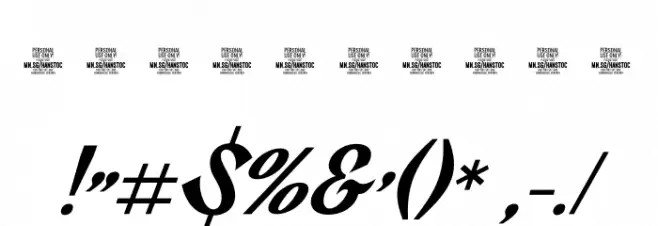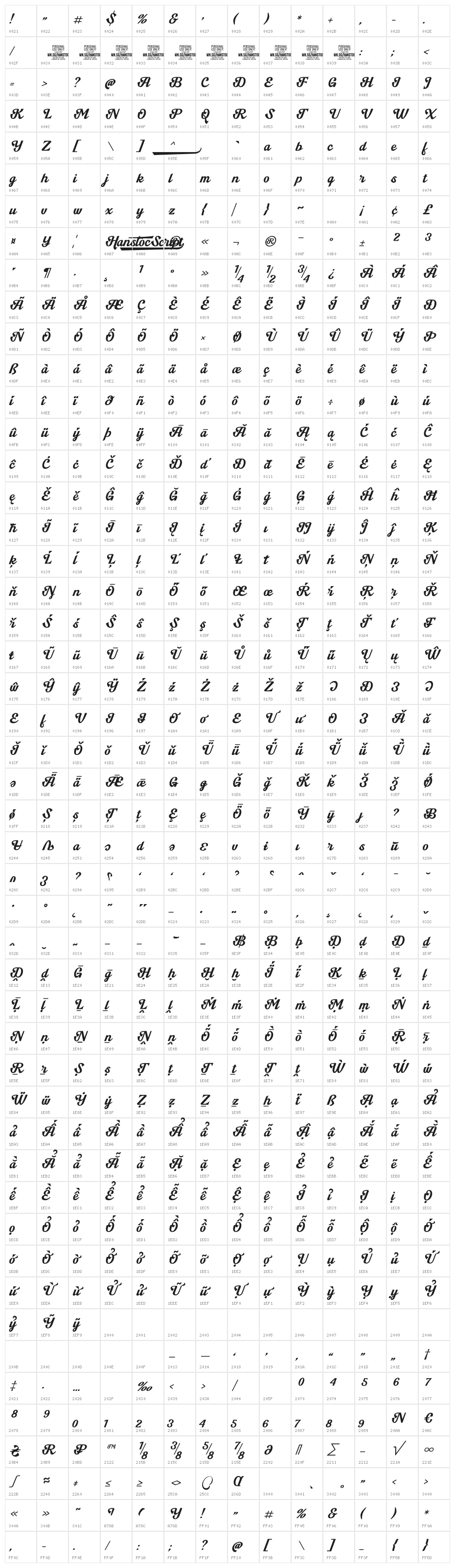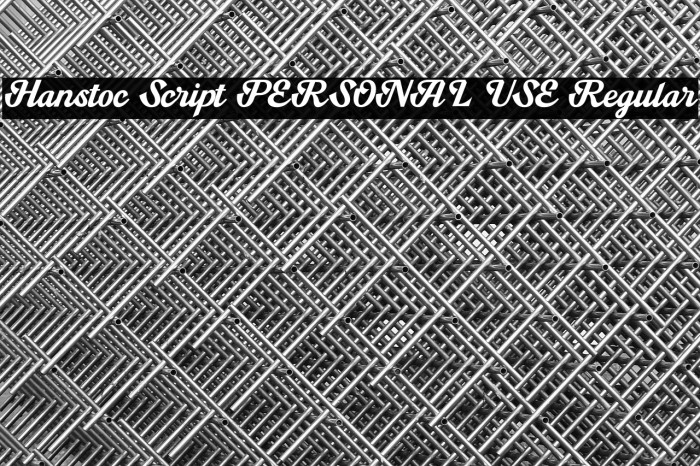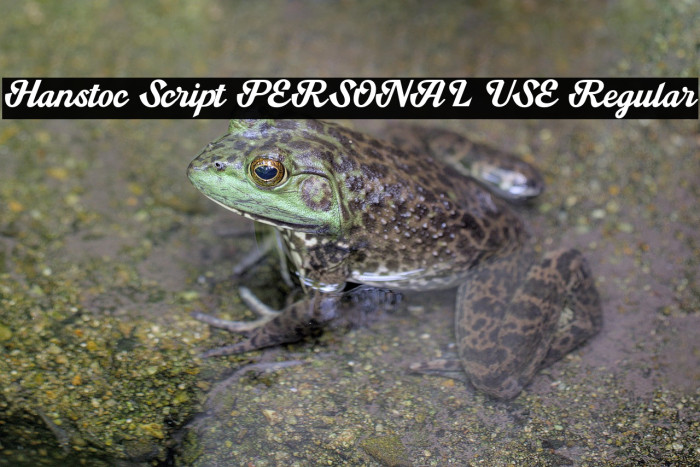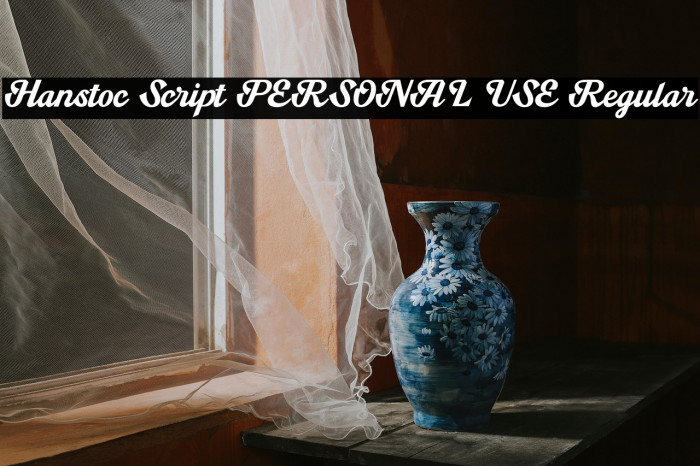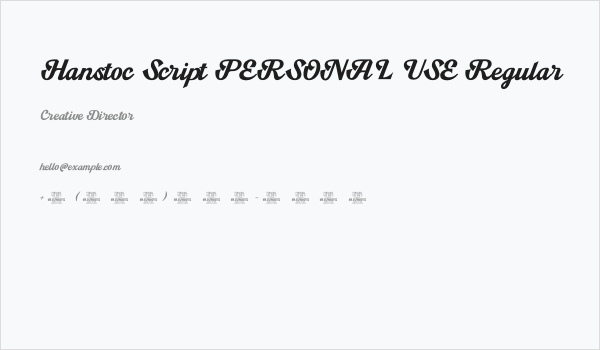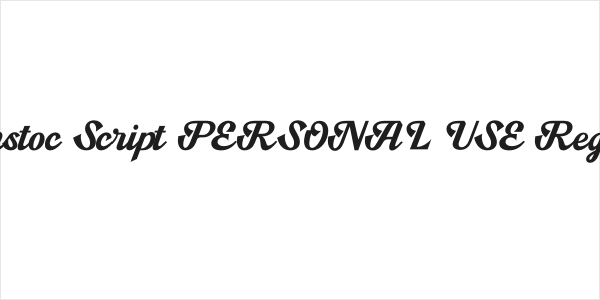
Hanstoc Script PERSONAL USE Regular Font
Hanstoc Script PERSONAL USE Regular Description
This font exudes a classic script style with a modern twist, characterized by its flowing, cursive letterforms that convey elegance and sophistication. The uppercase letters are bold and slightly slanted, while the lowercase letters maintain a consistent fluidity, enhancing readability. The font features a medium contrast in stroke thickness, providing a balanced appearance that is both stylish and functional. Special characters are seamlessly integrated, maintaining the overall aesthetic. This font is ideal for projects that require a touch of elegance and personal flair.
| Proposed Projects | Ideal for wedding invitations, greeting cards, branding, and elegant signage. |